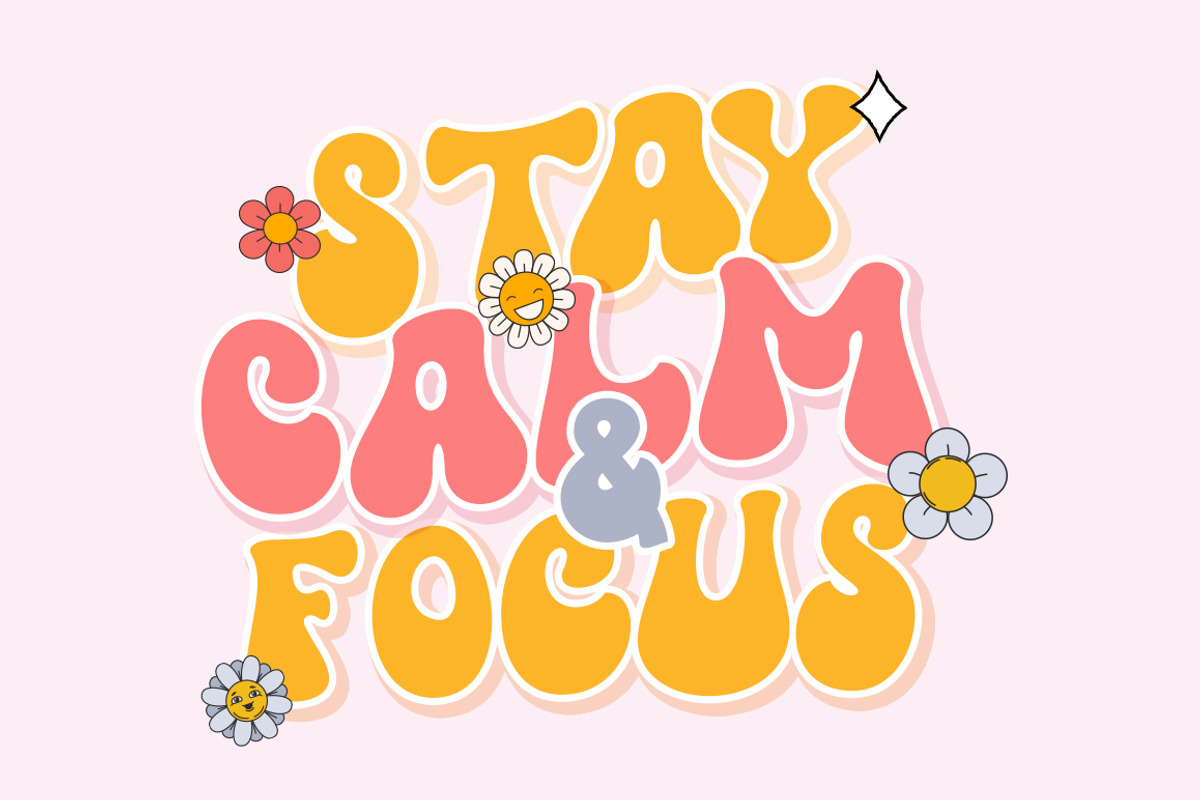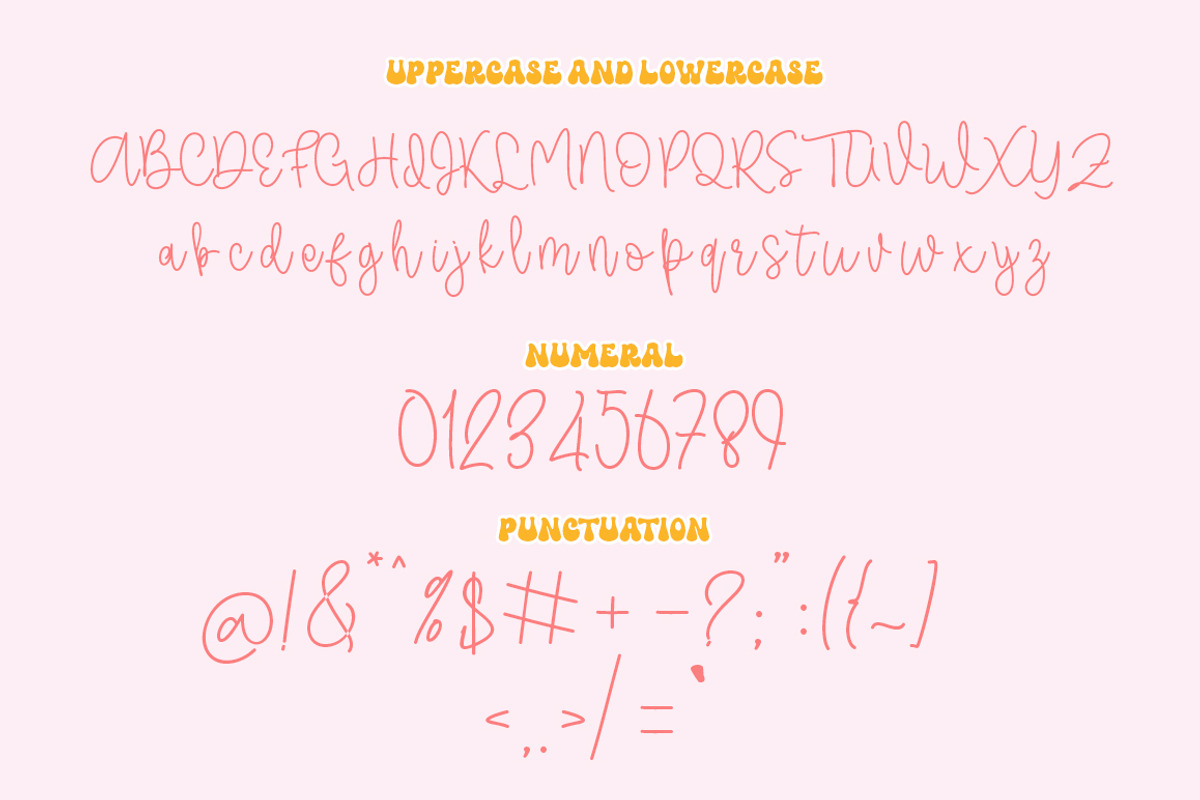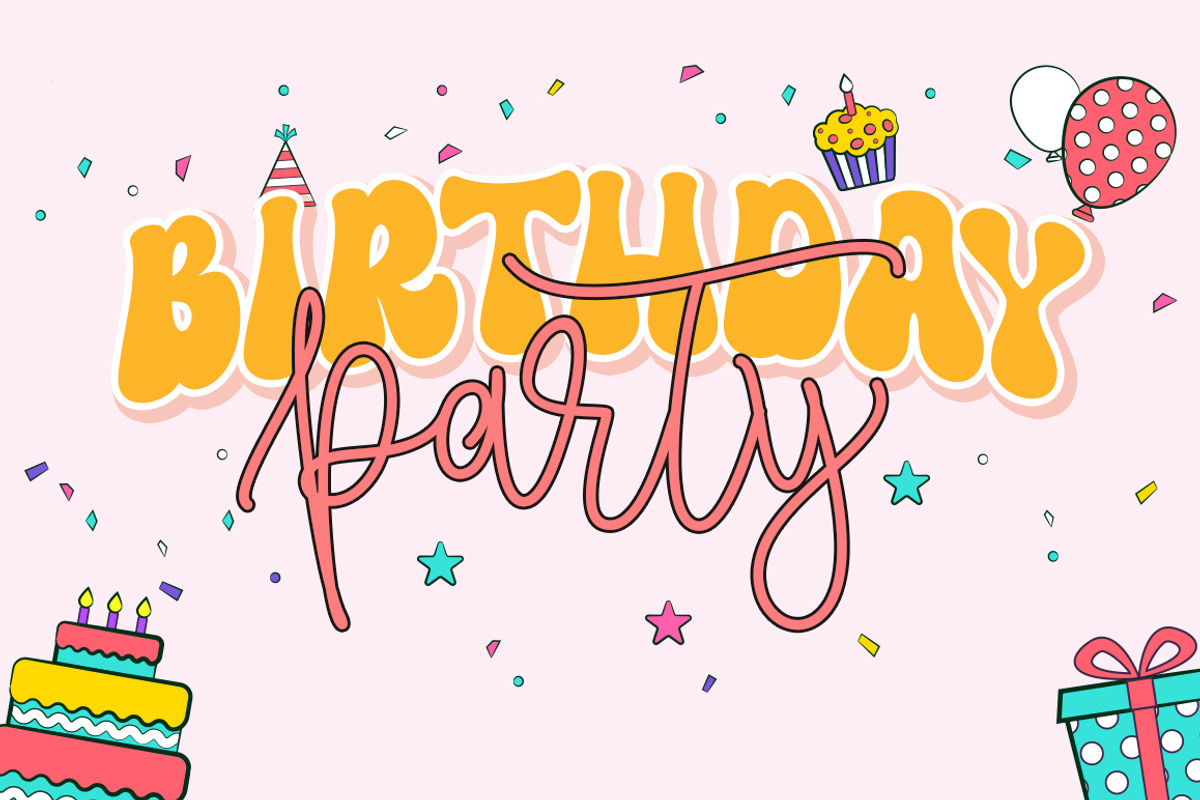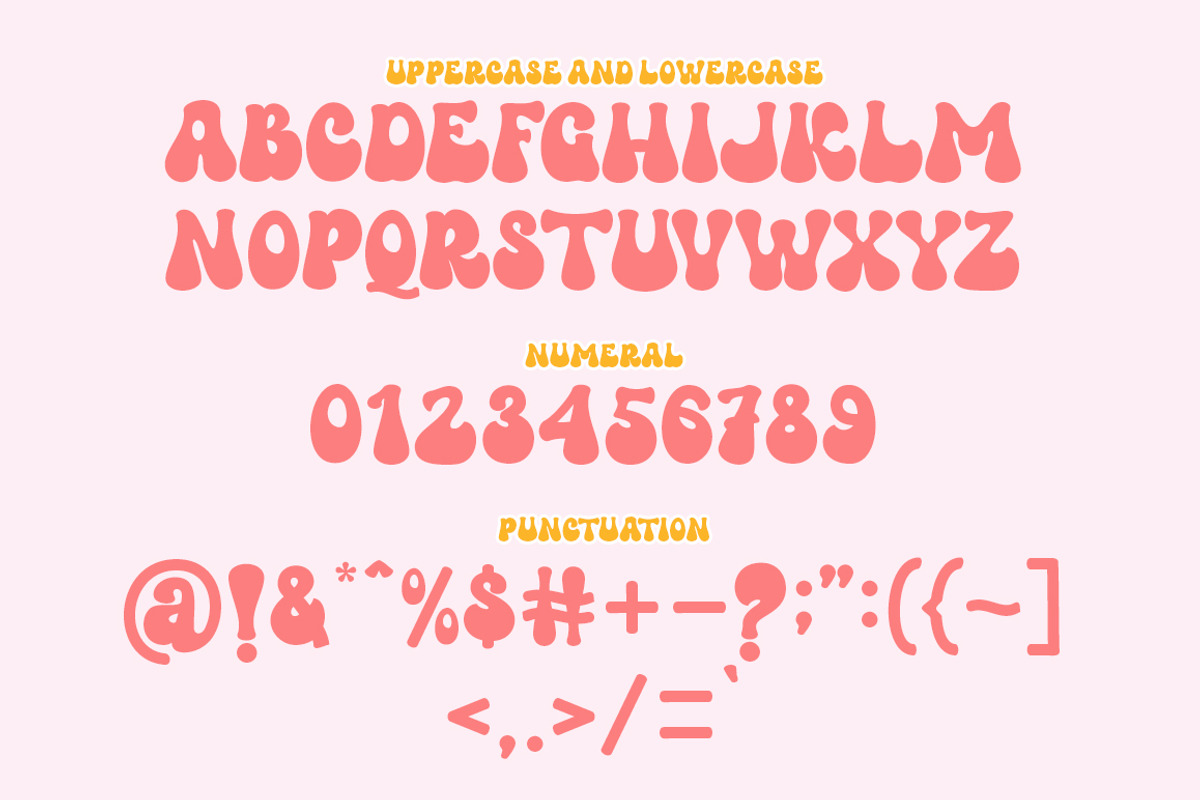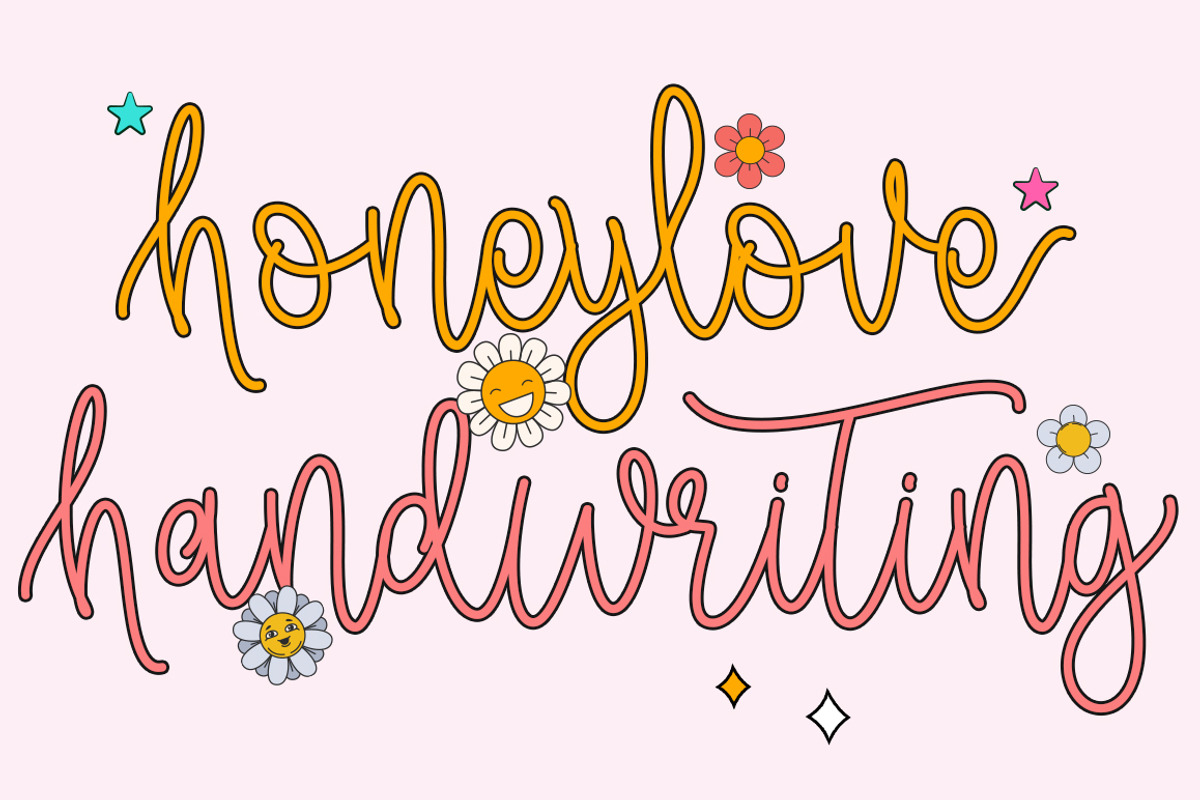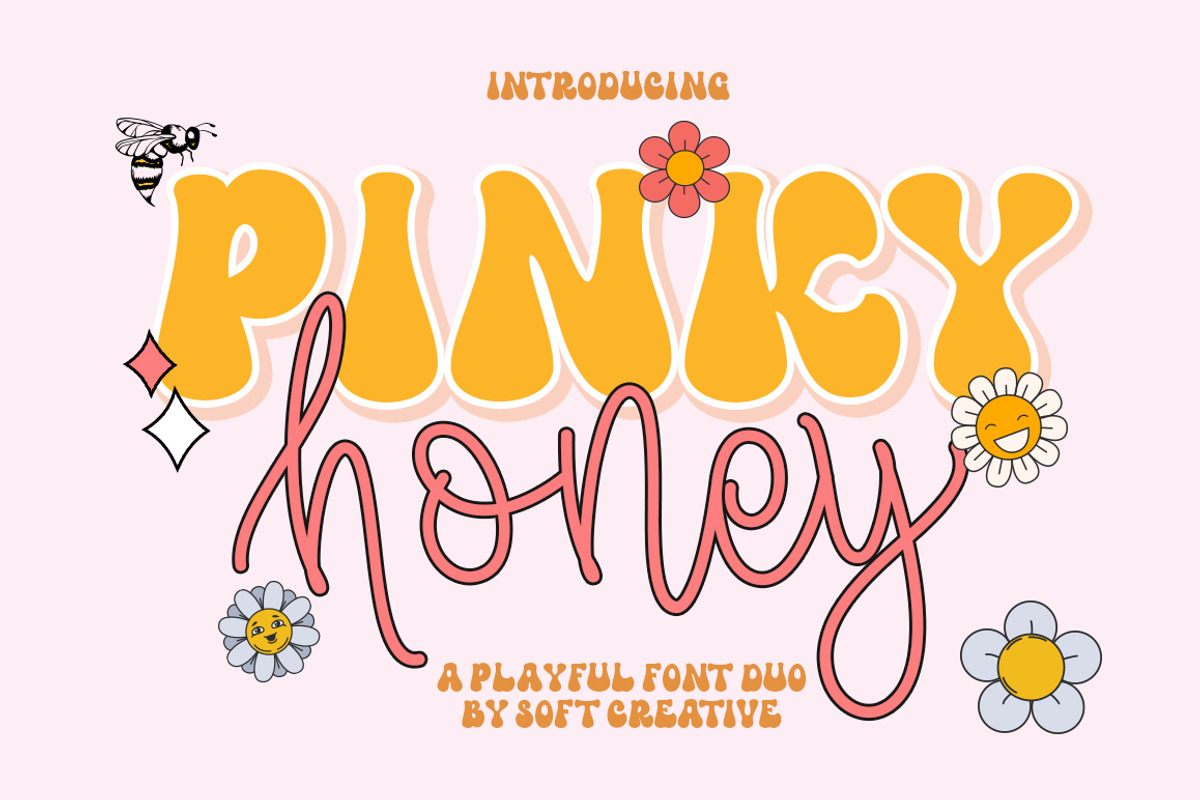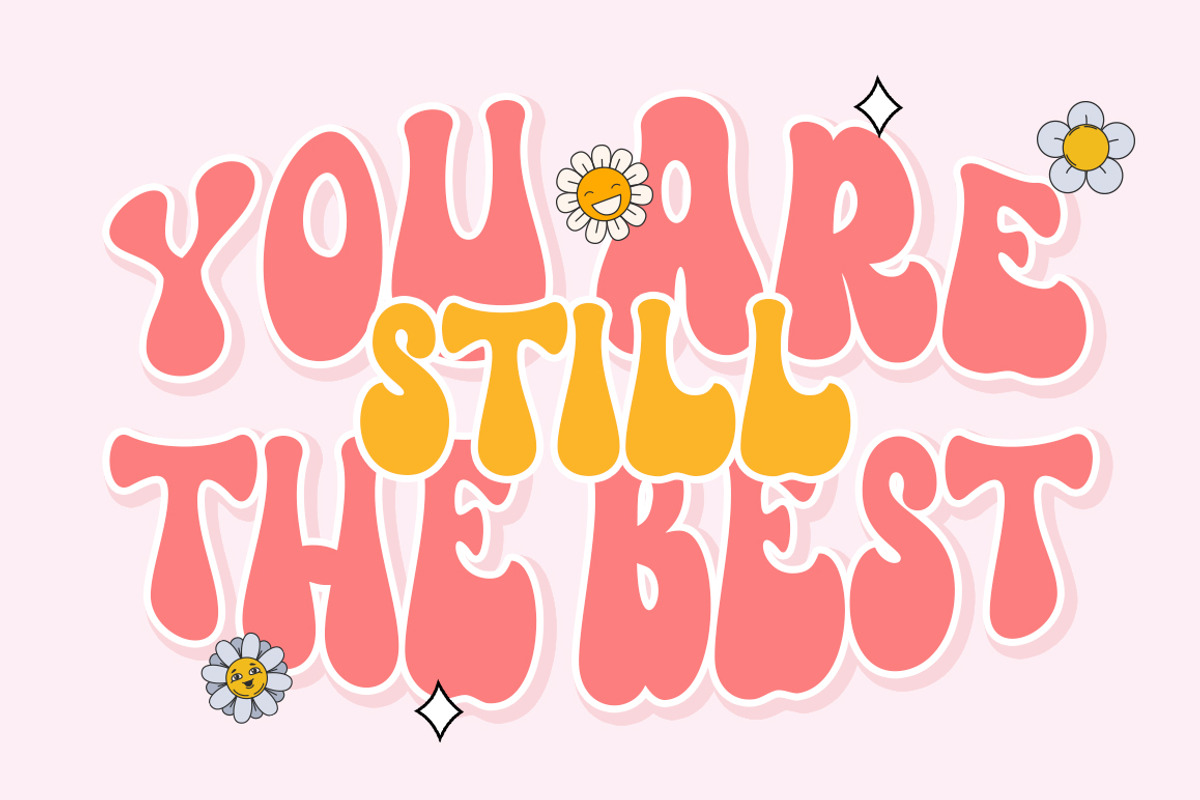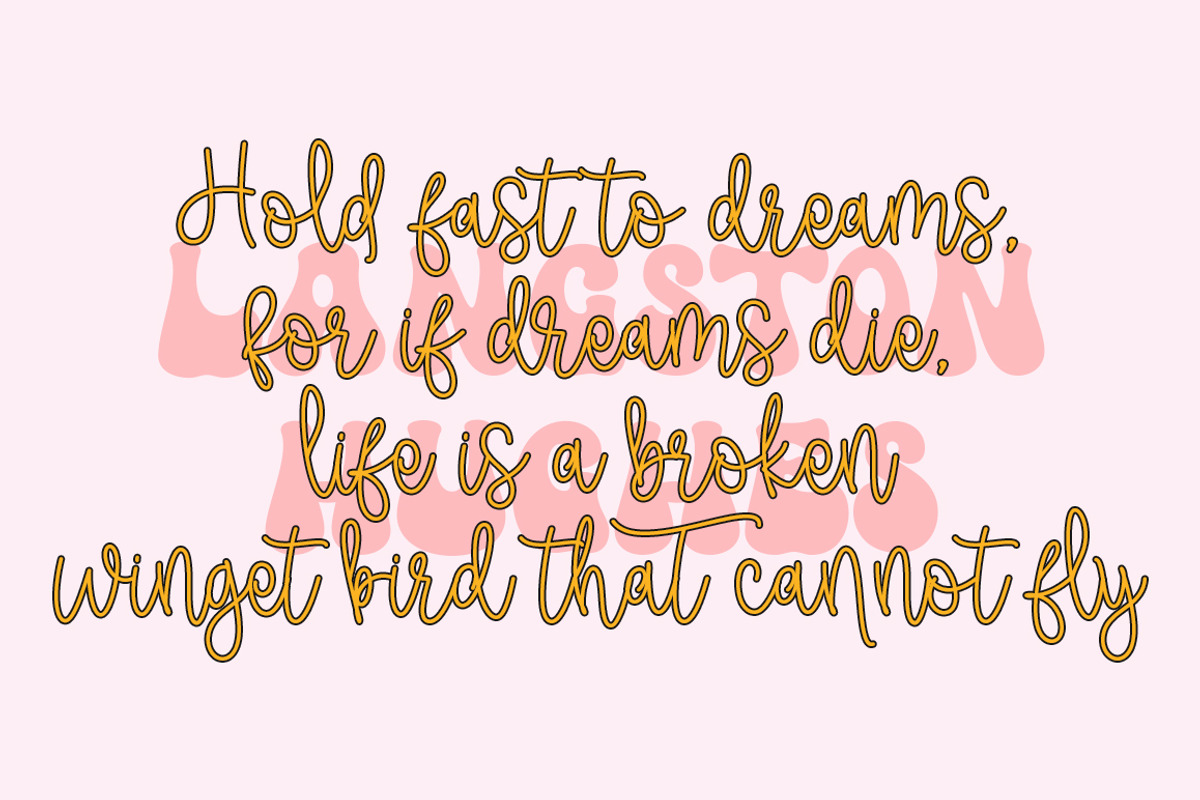
Pinky Honey
Pinky Honey is a sweet and cheerful duo font, combining a bold display style with an elegant, flowing script. Designed to convey a fun, retro, and cheerful feel, this font is perfect for a variety of design needs that want to stand out while remaining warm and friendly. The sans/bold section is bold, rounded, and eye-catching—perfect for headlines or titles that want to immediately grab attention. Meanwhile, the script adds a personal and feminine touch with its smooth, flowing curves. The combination of the two creates a playful yet stylish visual harmony, making it an ideal choice for creative projects such as branding, packaging, posters, social media, even children's designs or modern vintage themes.